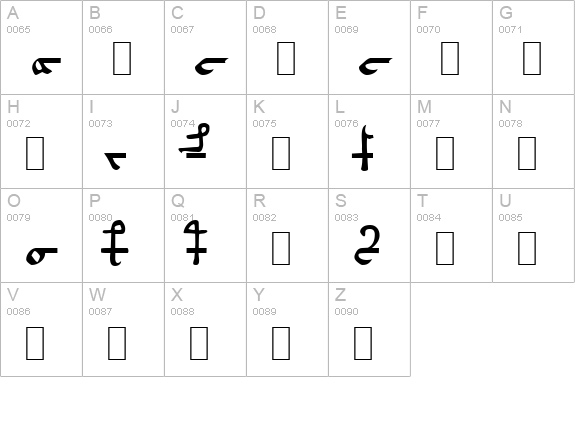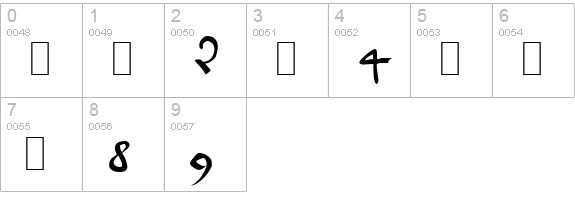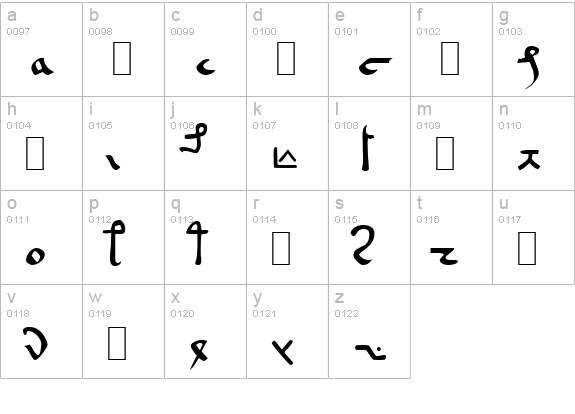
Voynich Frogguy Hand A Font Details
Introducing Voynich Frogguy Hand A, a captivating and whimsical font designed to add a touch of playfulness and charm to your creative projects. This unique typeface showcases a delightful combination of hand-drawn strokes and cheerful characters, bringing an air of lightheartedness to any design. Voynich Frogguy Hand A is perfect for a wide range of applications, from children's books and posters to greeting cards and party invitations. Its intricate details and carefully crafted letterforms create a sense of artistic craftsmanship, making it an ideal choice for those seeking a font that stands out from the crowd. One of the most appealing aspects of Voynich Frogguy Hand A is that it is freely available to download at FontsMarket.com. This means that you can easily bring this font to life in your projects without any cost, making it an excellent option for both personal and commercial use. Whether you are a student, a professional designer, or simply someone who loves to experiment with fonts, Voynich Frogguy Hand A offers a high-quality and visually captivating solution that won't break the bank. With its wide range of characters, including uppercase and lowercase letters, numbers, and punctuation marks, Voynich Frogguy Hand A provides versatility and flexibility for your design needs. The seamless integration of each letter ensures a harmonious flow throughout your text, allowing you to create captivating and engaging compositions effortlessly. So, if you're looking to add a touch of whimsy and creativity to your next project, look no further than Voynich Frogguy Hand A. Download this delightful font for free at FontsMarket.com and unleash your imagination with its playful charm and artistic flair.